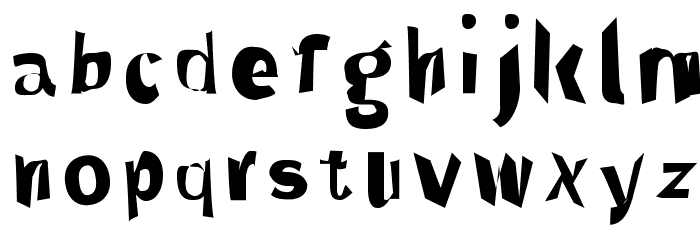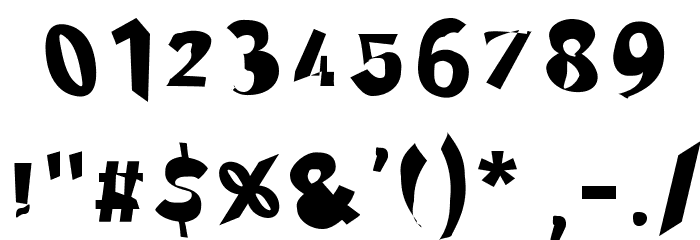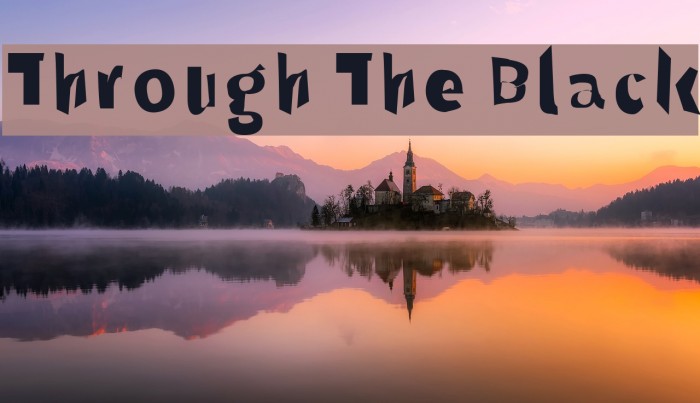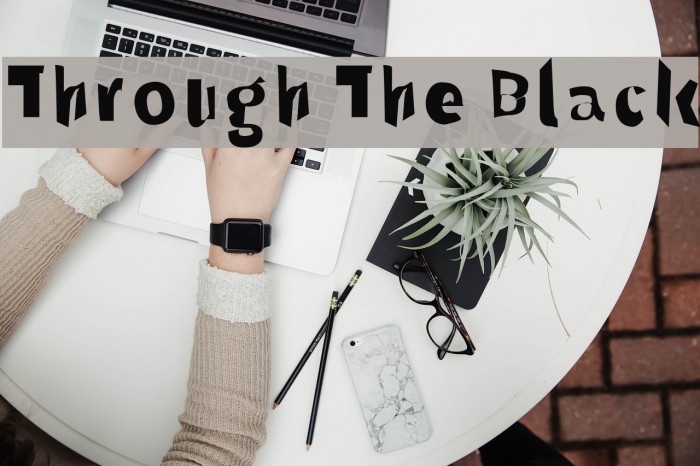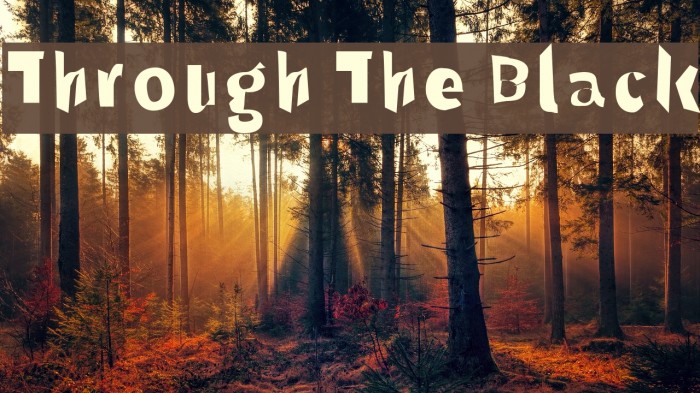
Through The Black Font
This font features a bold and dynamic style with a distinctly irregular and jagged appearance. The characters are designed with sharp angles and varying thickness, giving it a rough, edgy look. The uppercase and lowercase letters maintain a consistent style, with exaggerated curves and points that create a sense of movement and energy. The numbers and special characters follow the same aesthetic, ensuring a cohesive look across all elements. This font is ideal for projects that require a strong visual impact and a sense of rebellion or nonconformity.
A bold, jagged font with irregular shapes and dynamic energy.
- Proposed Projects: Ideal for posters, album covers, graffiti art, and edgy branding projects.
- Overall Style: Modern, Edgy